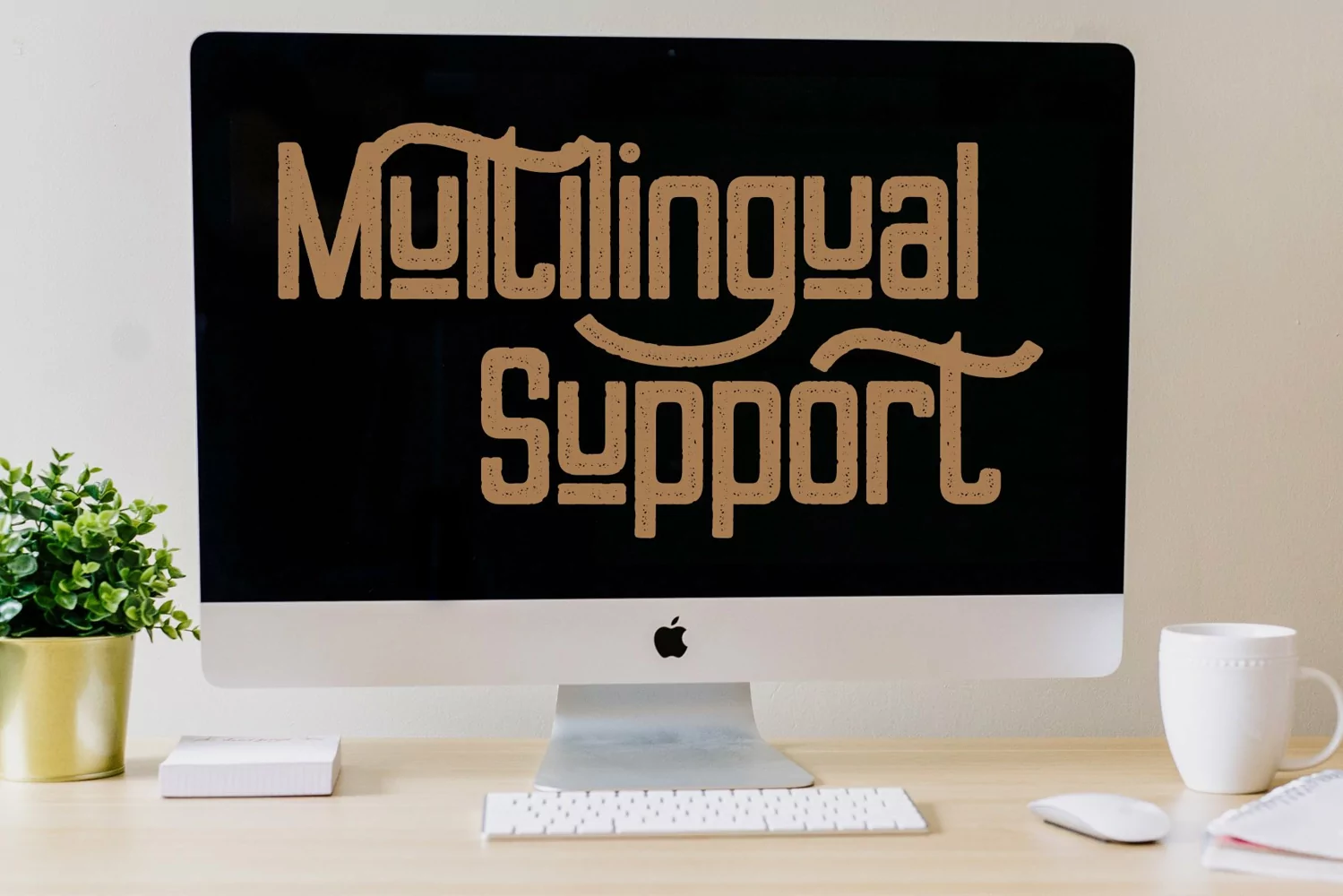
Walking Grey
**Walking grey Font**
This pair was inspired by the retro motorbike poster design that i saw on some coffee shop, It was crafted by hand specially to add natural handmade feeling in its brand identity than i make it clean with pentool.
Walking grey font has 213 character set included
Walking grey Font is very good looking in logo, labels, product packaging, invitations, advertising and others.
* Multilingual support (Western European characters).